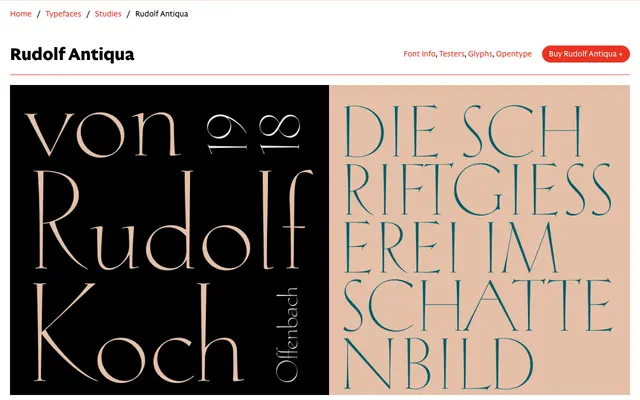
Rudolf Antiqua
CAST · Claudio Rocha, Lucas Franco · 2018
A careful digital revival of Rudolf Koch's Koch-Antiqua (1922), reconstructed from original Klingspor drawings and specimens by Claudio Rocha and Lucas Franco with an expanded character set and capital ligatures.
Rocha and Franco spent two years researching Koch's original proofs and specimens at the Klingspor Museum library before building the revival in digital format. The design preserves Koch-Antiqua's defining features: strongly flared stems, a notably small x-height that sets tall ascenders and capitals into sharp relief, and a humanist lowercase with Renaissance roots. The digital version adds accented characters, discretionary ligatures and contextual alternates, making it suited to display setting, book jackets and editorial work.
Rudolf Antiqua is a digital revival of Koch-Antiqua (1922), which exhibits humanist serif characteristics: strongly flared stems, a small x-height with tall ascenders, an oblique stress axis, and lowercase forms traceable to Venetian Renaissance models.